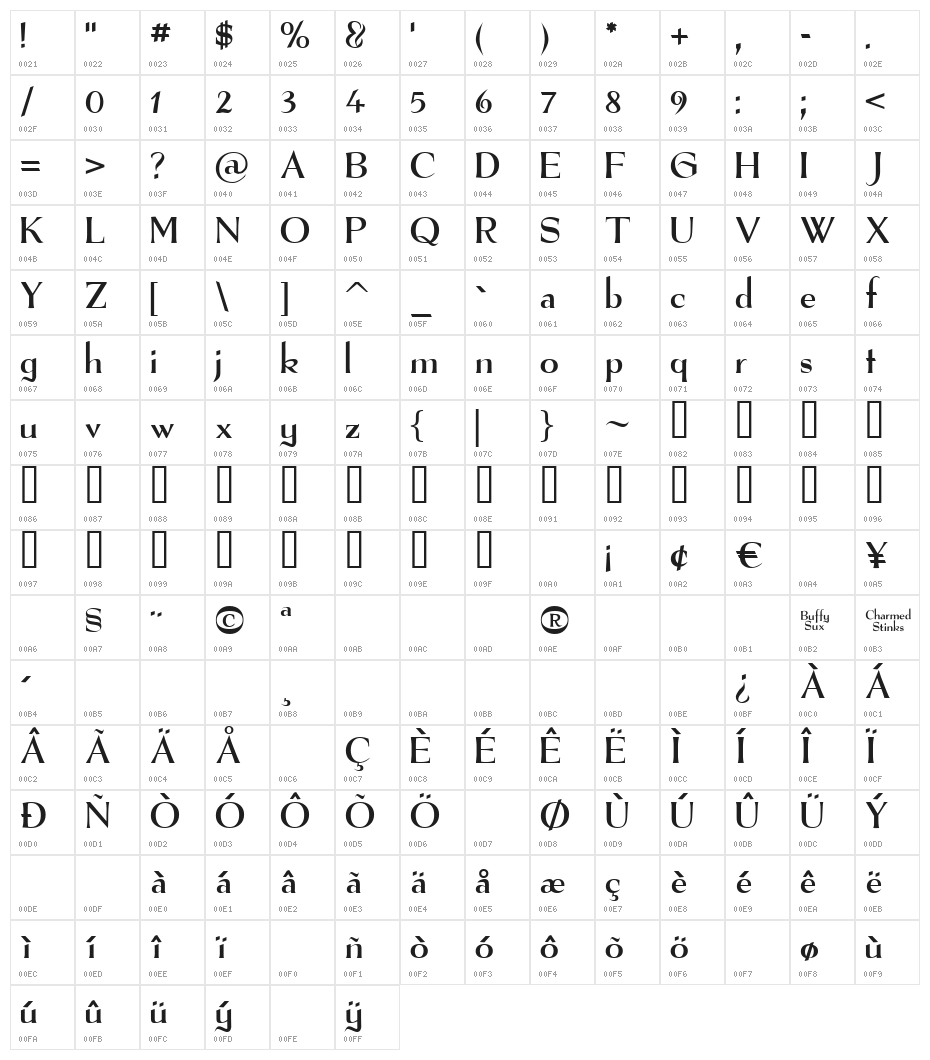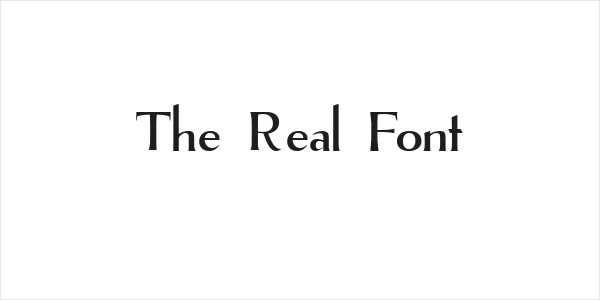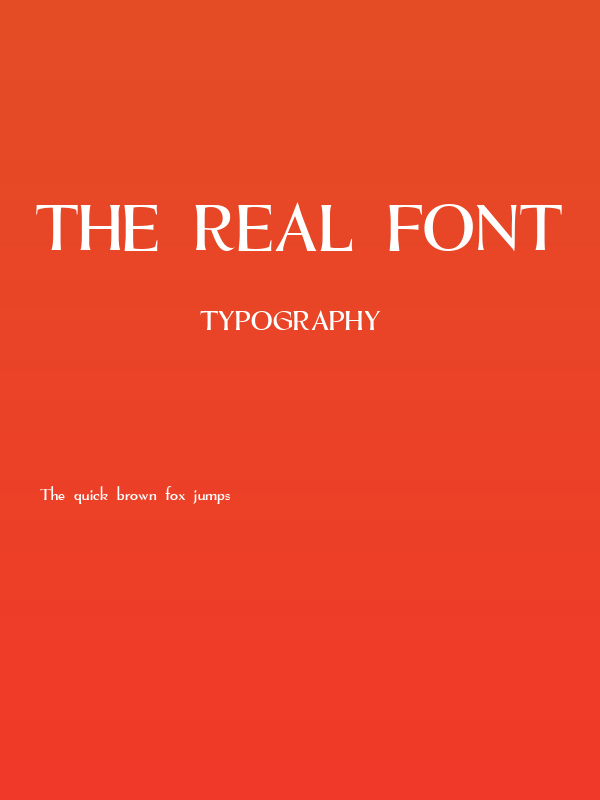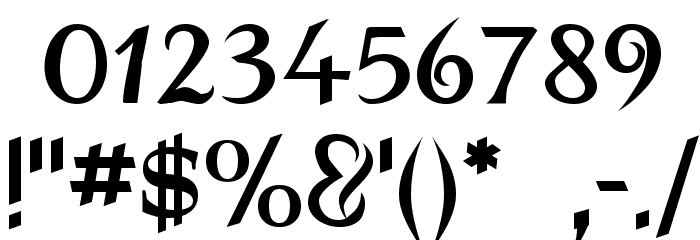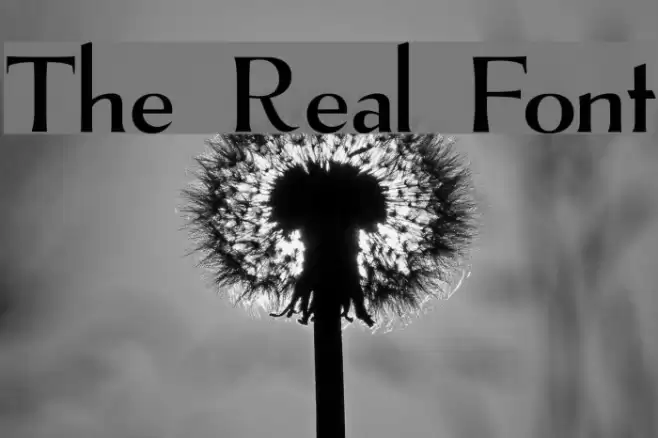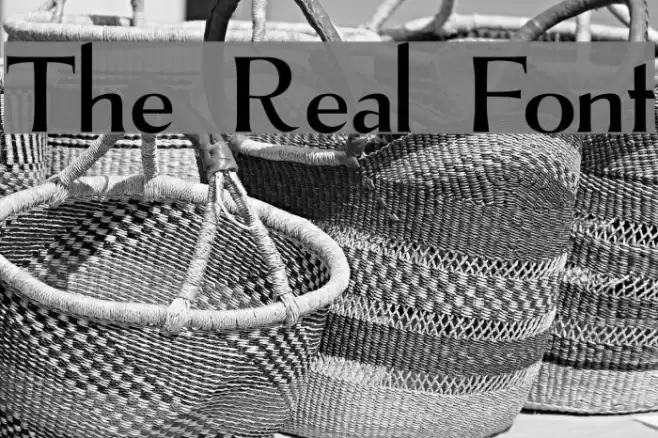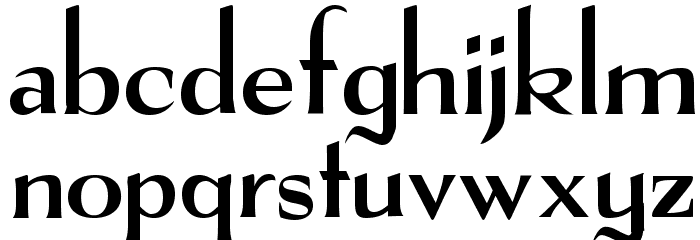
The Real Font Font
The Real Font Description
This font features a distinctive and elegant style with a classic serif design. The uppercase letters are bold and commanding, with sharp serifs that add a touch of sophistication. The lowercase letters maintain a consistent style, with unique curves and angles that give the font a dynamic appearance. The numerals are clear and easy to read, while the special characters are well-integrated, maintaining the overall aesthetic. This font's high contrast between thick and thin strokes enhances its readability and visual appeal, making it suitable for various design applications.
| Overall Style | Classic |
| Use Case | Headlines, Logos, Editorial design |
| Proposed Projects | Ideal for book covers, editorial design, branding, and formal invitations. |